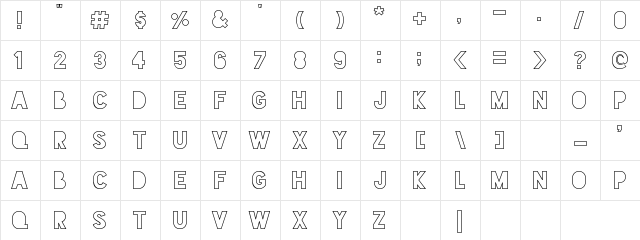
Complete Blackout Sunrise glyph index. Displaying only characters natively supported by Blackout Sunrise font.
Blackout is a composed and adaptable typeface that performs quietly and consistently across a wide range of design contexts.